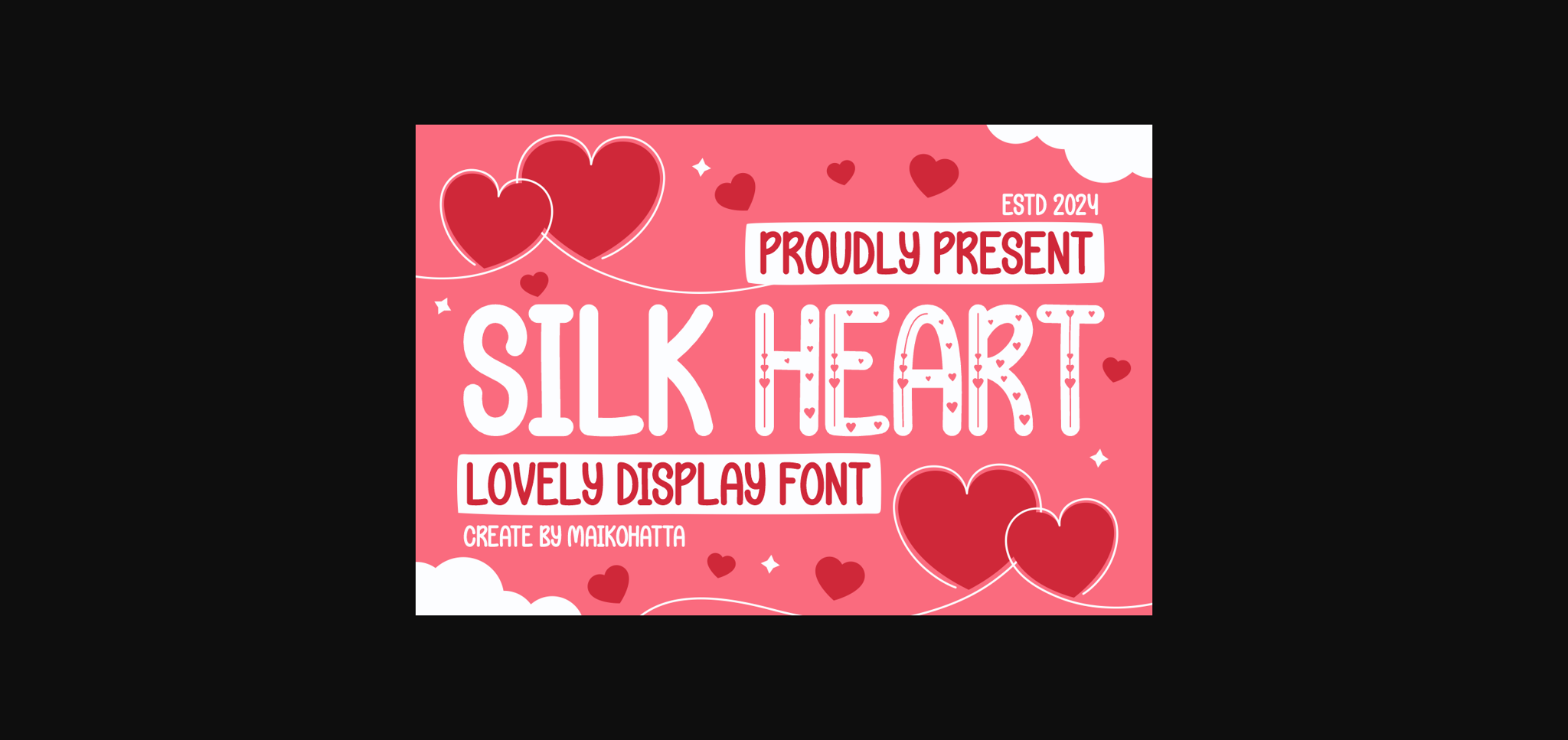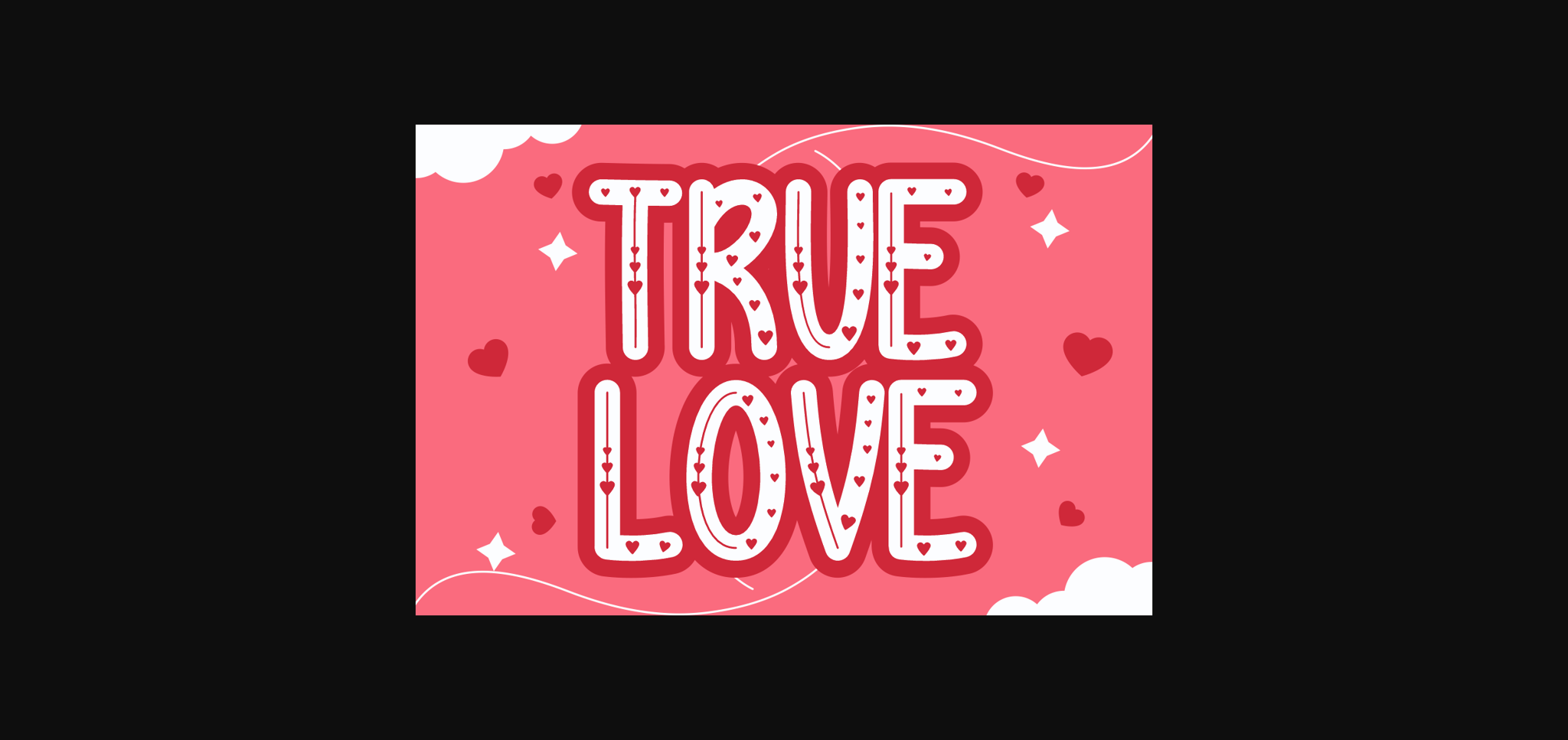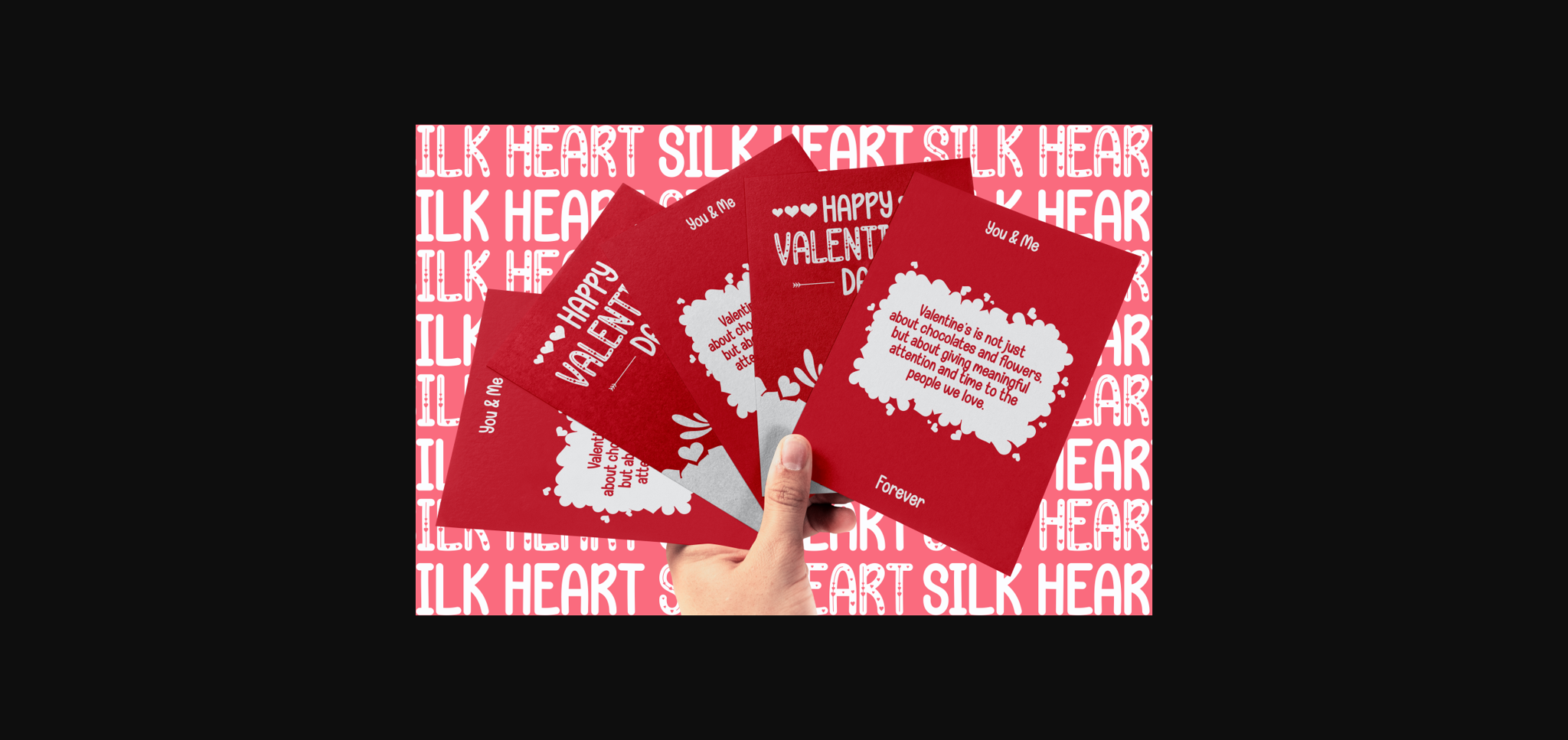
About Silk Heart Font
Silk Heart is a beautiful sans-serif font. This font is a typographic masterpiece that harmonizes elegance and sharpness. Every letter within this font is meticulously designed, with a keen focus on balanced proportions and impeccable alignment. This font is well-suited for a variety of contexts, such as print design, promotional materials, or magazine layouts.